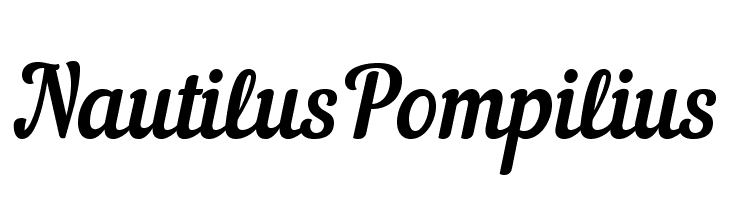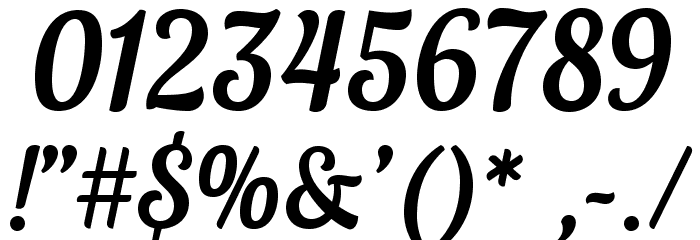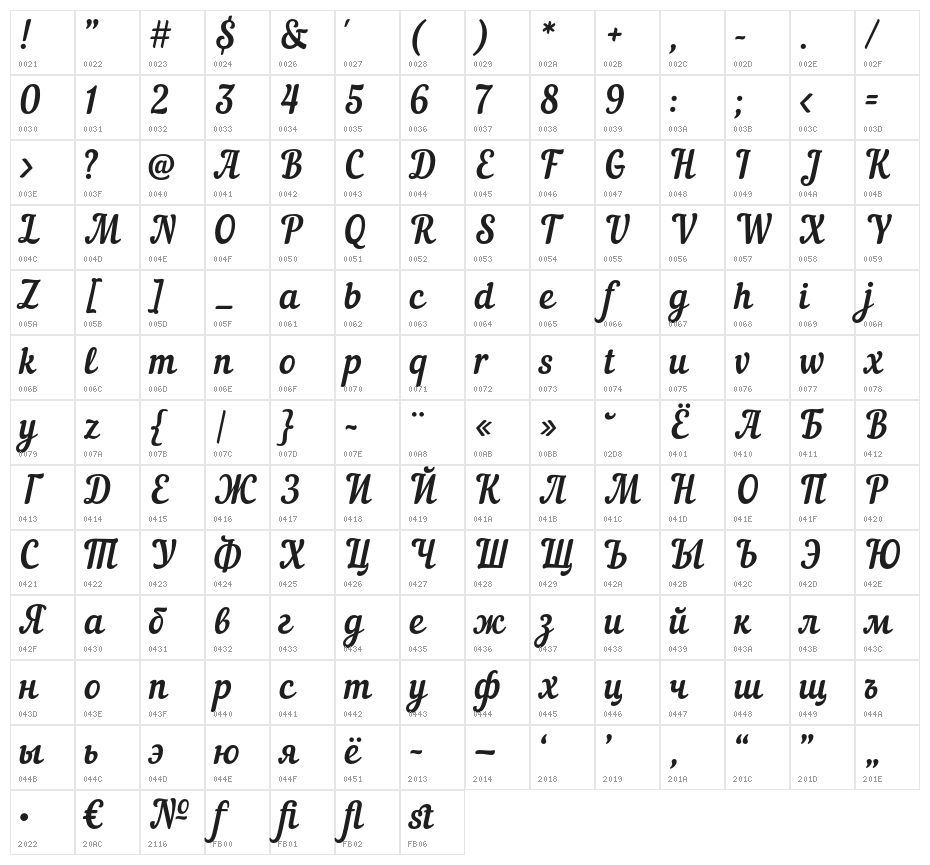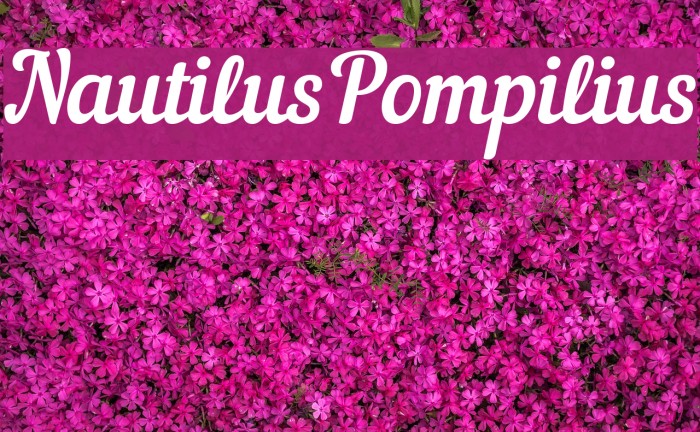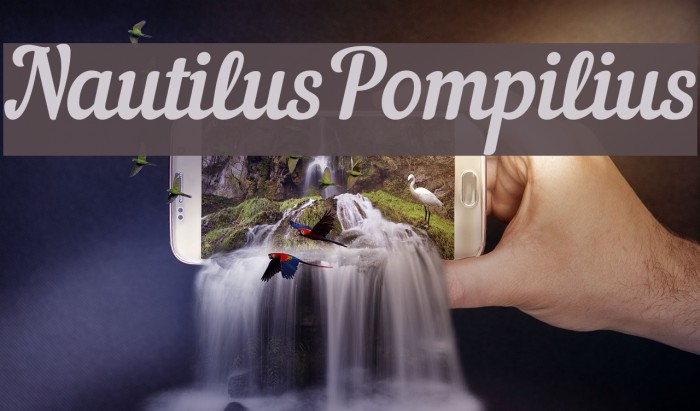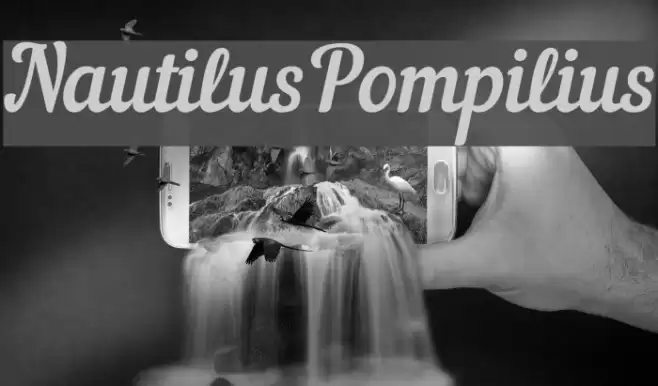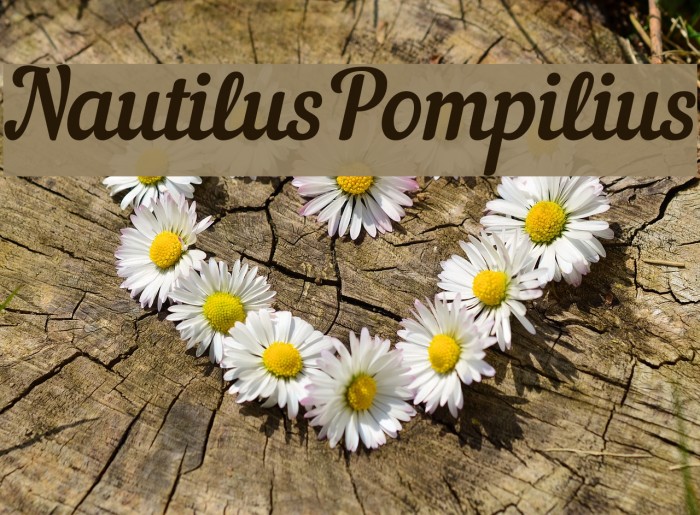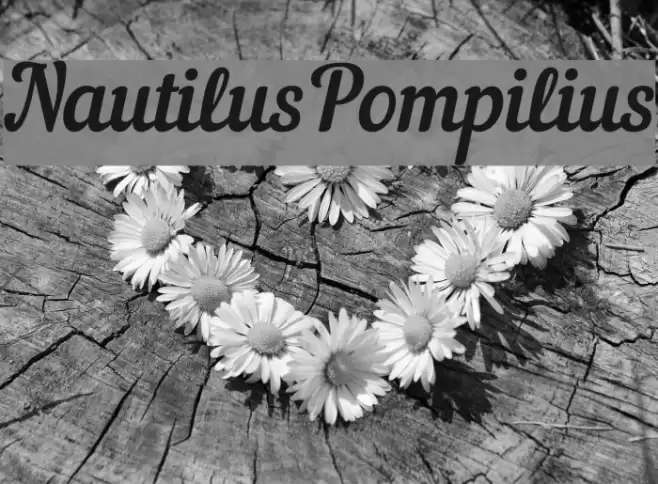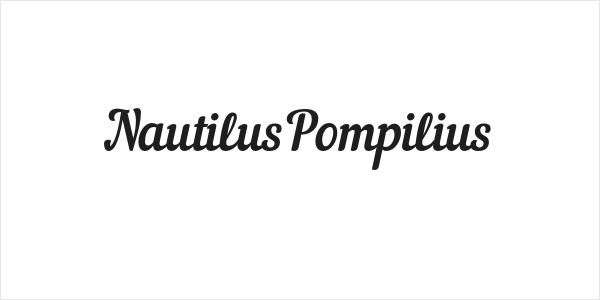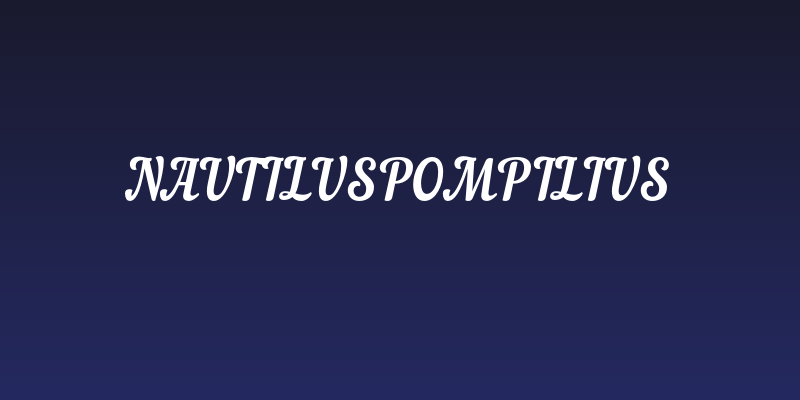
NautilusPompilius Font
NautilusPompilius Description
This font features a bold and dynamic script style with a flowing, cursive appearance. The uppercase letters are elegantly crafted with a slight slant, giving them a sense of movement and grace. The lowercase letters maintain a consistent style, with smooth curves and a harmonious flow. The numerals are bold and clear, matching the overall aesthetic of the font. Special characters are designed to complement the script style, adding versatility to its use. The font's bold weight and medium contrast make it suitable for impactful and stylish designs.